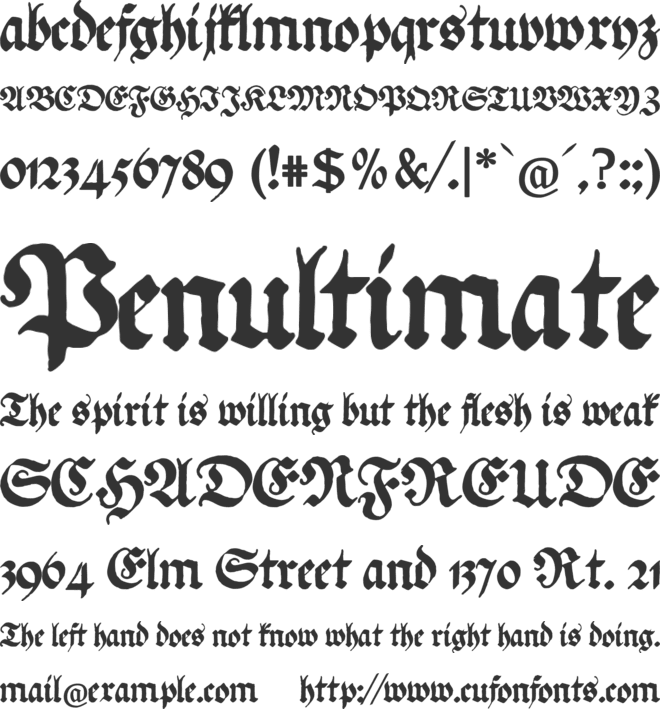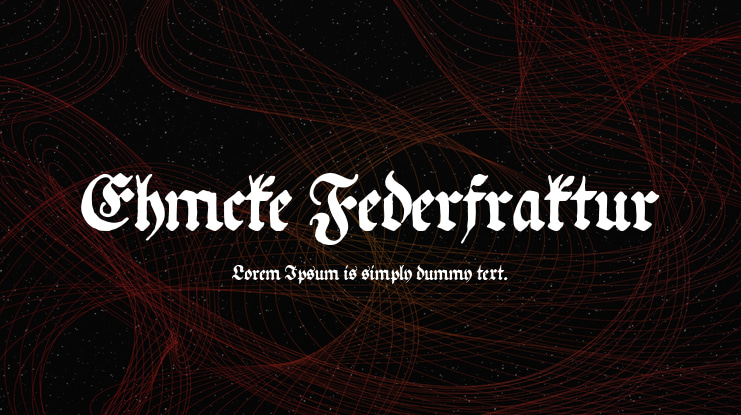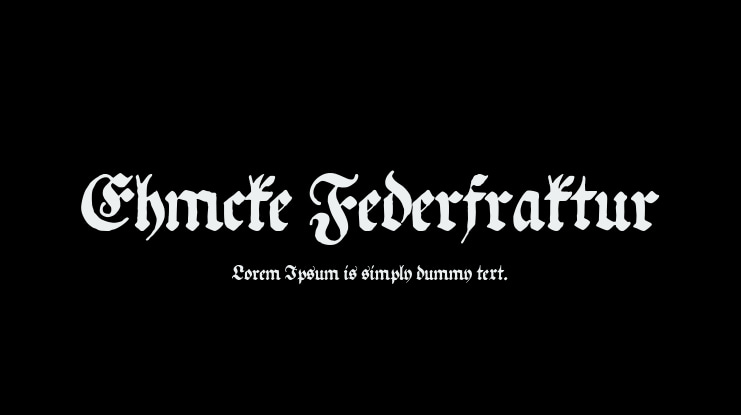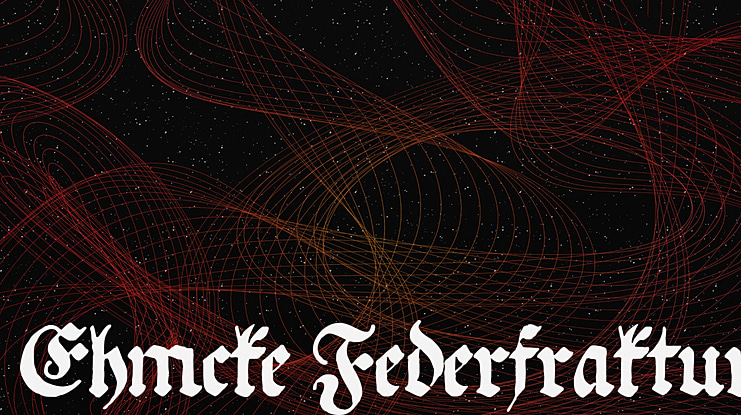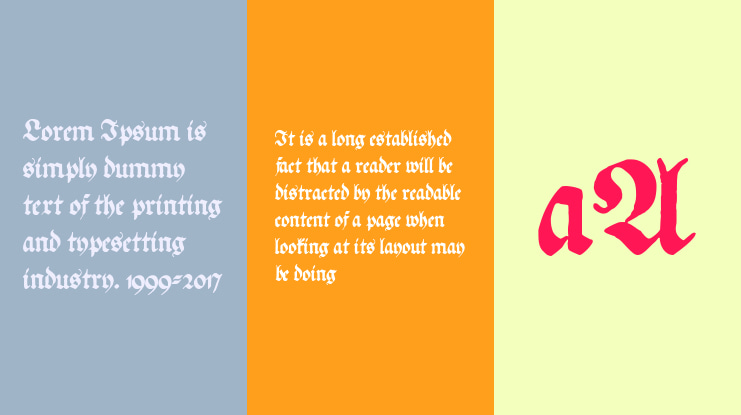
Ehmcke Federfraktur Font
F. H. Ehmcke um 1935
Translation of the original German description (http://www.peter-wiegel.de/EhmckeFeder.html): Lettering from the third edition "German Writing Booklet" by FH Ehmcke, published in 1941. As the ninth lettering in the book blackletter is being discussed. This font is written using a broad fountain-pen and clearly shows the origin of metal type blackletter.Ehmcke writes: This beautiful German lettering sets the highest standards for the author's abilities, because the rotation of the fountain-pen requires skill, adopting to the strong vertical stems and the reciprocating curved strokes.